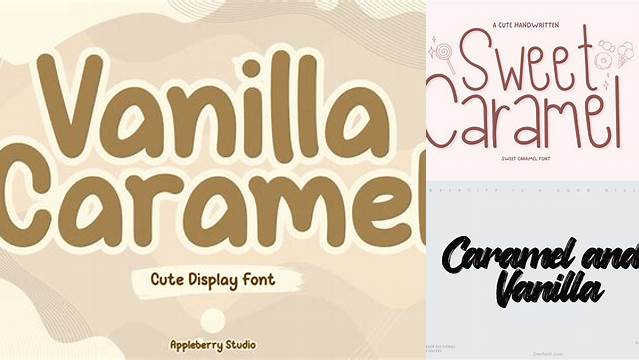
Free Caramel & Vanilla Font Downloads For Sweet Designs
Hey guys! Are you ready to add a dash of sweetness and elegance to your design projects? Look no further! The caramel and vanilla font is here to sprinkle your creations with a delectable touch. This font duo, with its contrasting yet harmonious styles, is a designer's dream come true. Whether you're whipping up a logo, crafting eye-catching marketing materials, or designing a website that oozes sophistication, the caramel and vanilla font can be your secret ingredient to success. In this article, we'll dive deep into the world of this delightful font pairing, exploring its unique characteristics, versatility, and where you can get your hands on it for free. So, buckle up, and let's embark on a flavorful journey into the realm of typography!
Unveiling the Magic of Caramel and Vanilla Fonts
Imagine the rich, warm embrace of caramel meeting the smooth, creamy coolness of vanilla. That's precisely the essence captured in this font combination. The caramel font, often a bold and playful script or a flowing handwritten typeface, exudes a sense of warmth, comfort, and personality. Think of it as the star of the show, adding a touch of whimsy and flair to your designs. On the other hand, the vanilla font typically takes the form of a clean, elegant sans-serif or a classic serif typeface. It acts as the perfect complement to the caramel font, providing a grounding presence and ensuring readability. Together, they create a harmonious balance, much like the beloved dessert duo they're named after.
The beauty of the caramel and vanilla font pairing lies in its versatility. It's not just about aesthetics; it's about conveying a specific mood and message. The caramel font, with its inherent personality, is fantastic for grabbing attention and injecting a dose of fun. It's perfect for logos, headlines, and designs that need a touch of character. Think of branding for a bakery, a children's book cover, or a social media campaign targeting a younger audience. The vanilla font, in contrast, brings a sense of professionalism and clarity. It's ideal for body text, subheadings, and situations where readability is paramount. Imagine designing a corporate brochure, a website for a luxury brand, or an invitation to a formal event. The vanilla font ensures that your message is delivered with sophistication and grace.
The combination of these two fonts opens up a world of creative possibilities. You can use the caramel font to highlight key words or phrases, creating visual interest and drawing the reader's eye. The vanilla font can then provide the context and details, ensuring that the overall message is clear and concise. This interplay between the two fonts can add depth and dimension to your designs, making them more engaging and memorable. It's like adding a dash of spice to a classic dish – it elevates the entire experience. Remember, typography is an art form, and the caramel and vanilla font pairing is a beautiful example of how different styles can come together to create something truly special. So, don't be afraid to experiment and explore the endless possibilities this delightful duo offers.
- DaFont: DaFont is a popular website with a vast collection of free fonts, ranging from elegant and classic to quirky and playful. While many fonts on DaFont are free for personal use only, there's still a good selection available for commercial use. Just be sure to check the license agreement before downloading.
- Creative Market (Free Goods Section): Creative Market is a marketplace for design assets, but they also have a section dedicated to free goods, which often includes fonts. These freebies are typically available for a limited time, so it's worth checking back regularly to see what's new. You might just find a hidden gem that perfectly embodies the caramel and vanilla aesthetic.
- MyFonts: MyFonts is a reputable font marketplace, and they occasionally offer free fonts as part of promotions or giveaways. Keep an eye on their website and social media channels to stay informed about these opportunities. While their free selection might be limited, you can often find high-quality fonts that are worth snagging.
When searching for your caramel and vanilla fonts, consider using keywords like "script font," "handwritten font," "sans-serif font," and "serif font." You can also try specific style keywords like "vintage," "modern," "elegant," or "playful" to narrow down your search. Remember, the key is to find two fonts that complement each other and create a harmonious visual balance. Don't be afraid to experiment and try different combinations until you find the perfect pairing for your project.
Conclusion: Embrace the Sweetness
The caramel and vanilla font pairing is a delightful treat for any designer looking to add a touch of sweetness and elegance to their creations. With its contrasting yet harmonious styles, this font combination offers incredible versatility and can be used in a wide range of projects, from branding and marketing to web design and social media. By understanding the unique characteristics of each font and following the tips outlined in this article, you can effectively use this duo to create stunning designs that capture the essence of your message. So, go ahead, embrace the sweetness, and let the caramel and vanilla font transform your designs into delectable works of art!